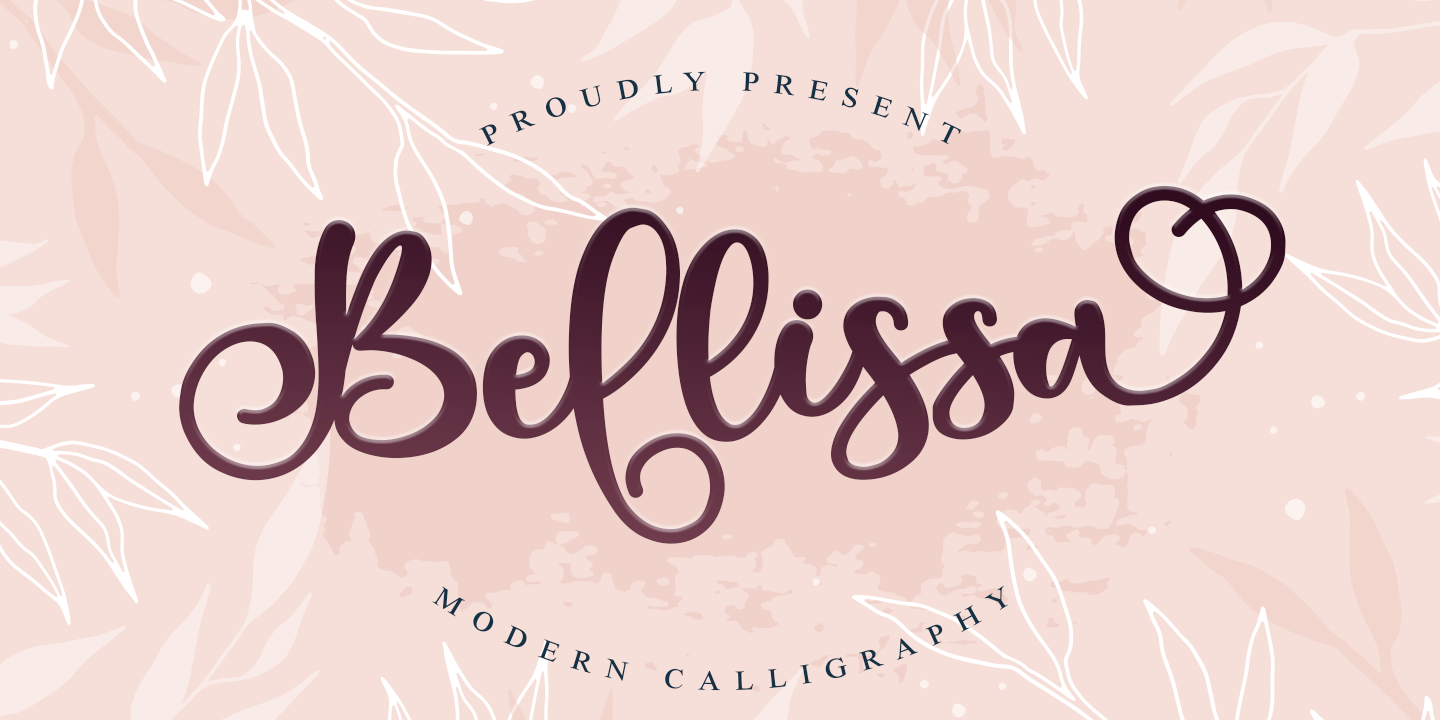
Bellissa Font is perfect for elegant beauty salon branding, luxury cosmetics packaging, sophisticated fashion magazines, upscale jewelry marketing, refined spa materials, premium perfume labels, graceful wedding stationery, feminine lifestyle blogs, boutique hotel signage, and exquisite projects that celebrate timeless feminine beauty and sophisticated elegance with refined grace and contemporary luxury appeal.
What makes Bellissa Font so exciting is its exquisite capture of feminine sophistication through beautifully crafted letterforms that embody grace and contemporary elegance. This typeface radiates the essence of refined beauty and modern femininity, featuring delicate curves and elegant proportions that suggest silk ribbons and pearl necklaces while maintaining exceptional readability for contemporary luxury applications requiring both beauty and sophisticated functionality.
Bellissa Font family includes multiple elegant variations: Regular, Bold, Light, Italic, Script, Delicate, Sophisticated, and Graceful versions. Each style maintains the font's inherent feminine elegance while offering different levels of refinement and luxury appeal, enabling designers to create cohesive beauty aesthetics that resonate with discerning women seeking sophisticated experiences and timeless feminine elegance.
The sophisticated appeal of Bellissa Font Free Download makes it exceptionally valuable for beauty and luxury lifestyle industries targeting refined feminine markets. This font successfully communicates elegance and contemporary sophistication, making it perfect for brands that want to attract women who appreciate timeless beauty and luxury experiences. Its graceful character works beautifully across both digital beauty platforms and premium print materials, while its distinctive feminine design creates immediate recognition among audiences who value sophisticated elegance and appreciate the refined beauty of contemporary feminine luxury and timeless grace.